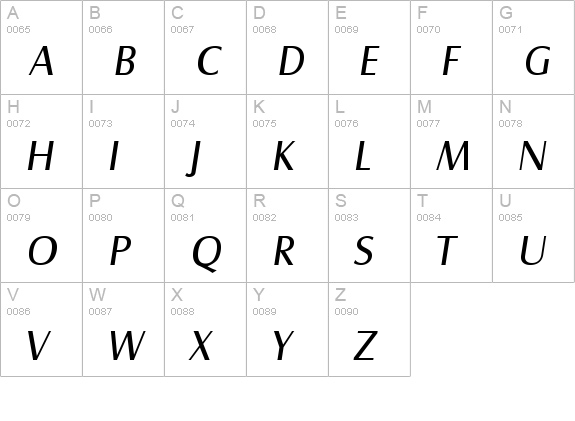
Salzburg-RegularIta is a beautifully designed font that adds a touch of elegance and sophistication to any project. This italicized version of the Salzburg font family brings a sense of fluidity and grace to your typography. With its sleek curves and subtle slant, Salzburg-RegularIta is perfect for adding emphasis or highlighting important information. The free availability of this font makes it even more appealing. You can easily download Salzburg-RegularIta at FontsMarket.com, where it is freely accessible to all designers and creatives. Whether you are working on a personal project or a professional assignment, this font will surely elevate your design to new heights. Salzburg-RegularIta is versatile and can be used in a variety of contexts, from print materials such as brochures and posters, to digital platforms like websites and social media graphics. Its legibility and readability make it ideal for both large headings and body text, ensuring that your message is effectively communicated to your audience. The attention to detail in Salzburg-RegularIta is evident in every letterform, with carefully crafted strokes and elegant proportions. The font exudes a sense of timeless beauty, making it suitable for a wide range of design styles and themes. Whether you are creating a classic and traditional design or a modern and contemporary layout, Salzburg-RegularIta will effortlessly complement your vision. So why wait? Take advantage of the opportunity to freely download Salzburg-RegularIta at FontsMarket.com and enhance your designs with this exquisite font. With its refined aesthetics and effortless style, Salzburg-RegularIta is sure to become a staple in your font library. Elevate your typography and captivate your audience with this stunning font choice.